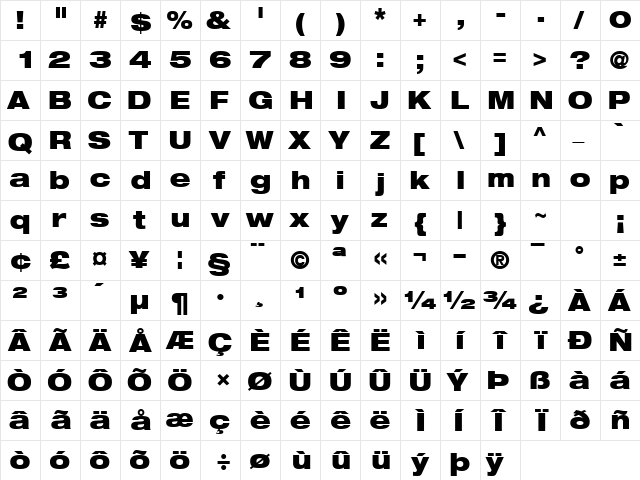
ContextRepriseBlackExpSSK Bold Font Preview
ContextRepriseBlackExpSSK Bold
Design Context for ContextRepriseBlackExpSSK Typeface
ContextRepriseBlackExpSSK is a composed and adaptable typeface that performs quietly and consistently across a wide range of design contexts. The heavy weight commands attention and anchors typographic hierarchies.